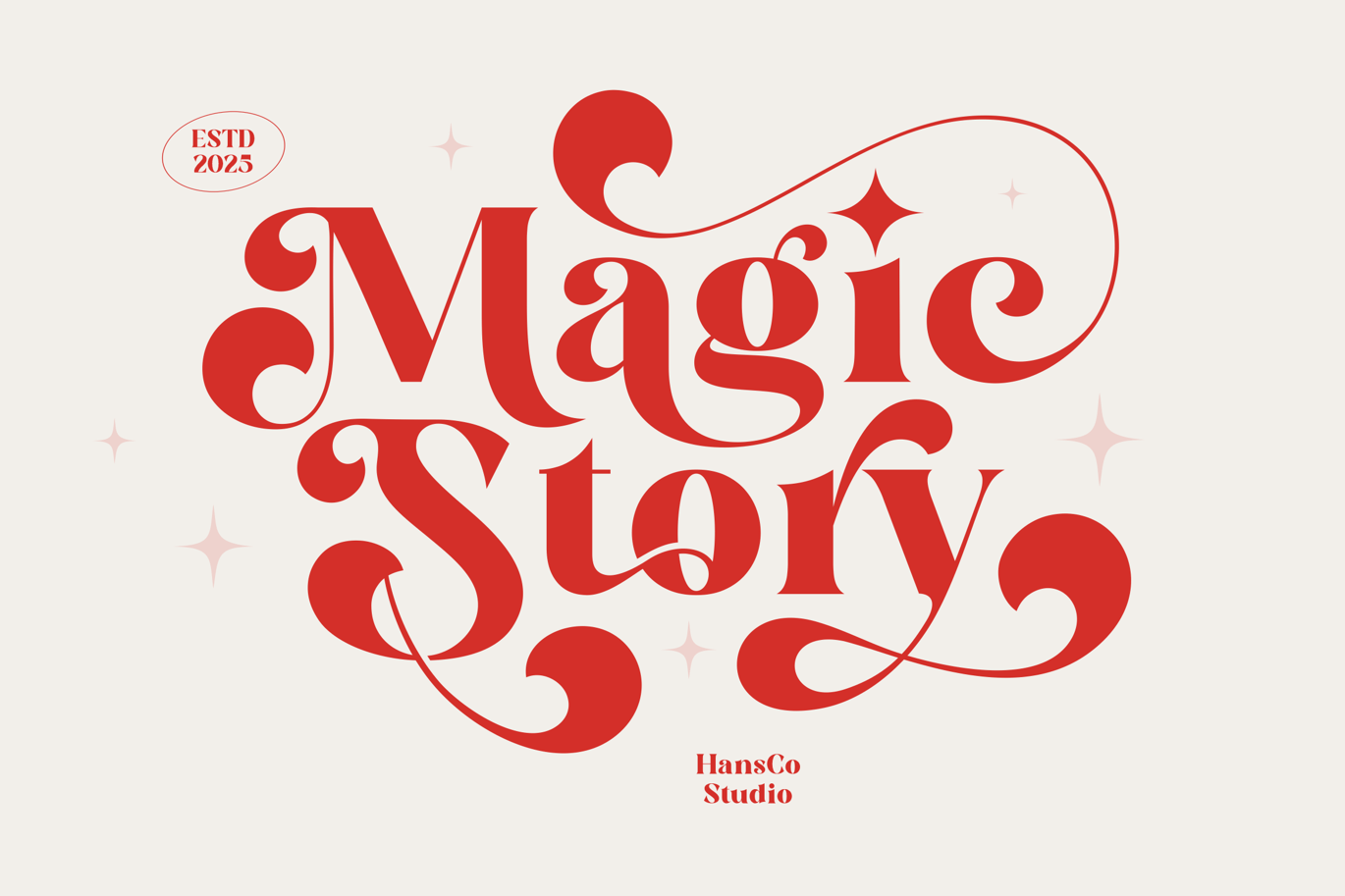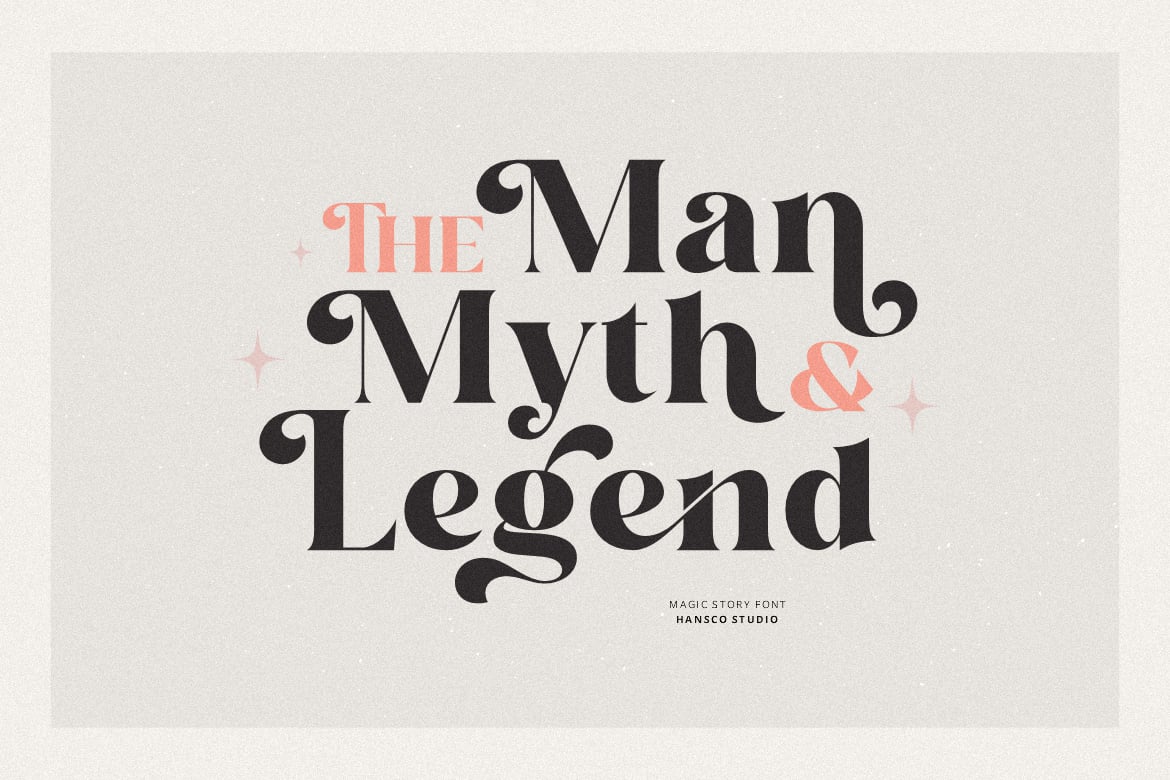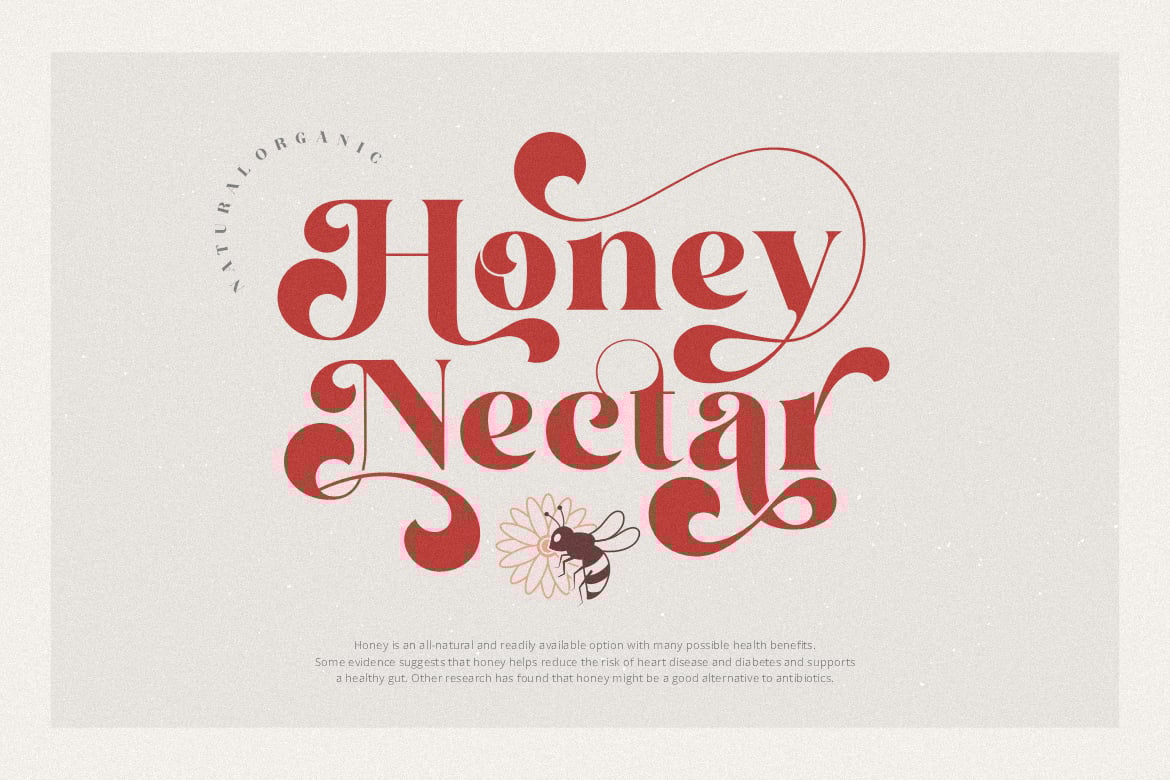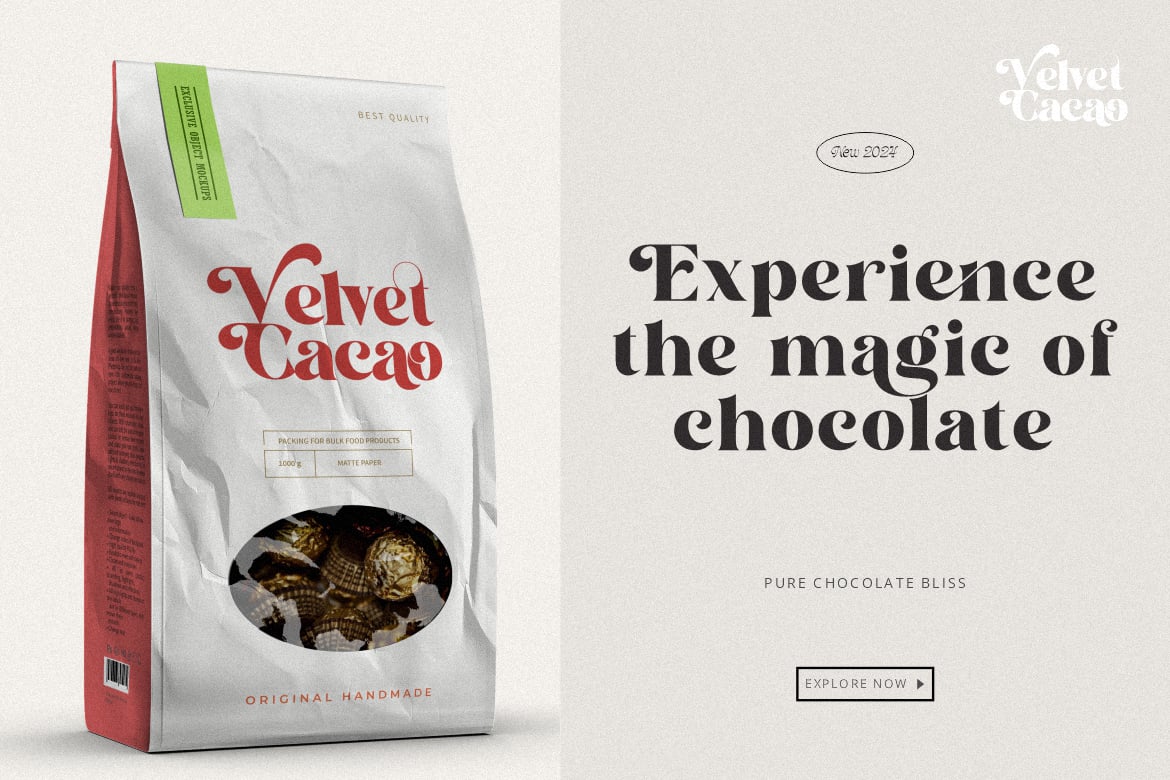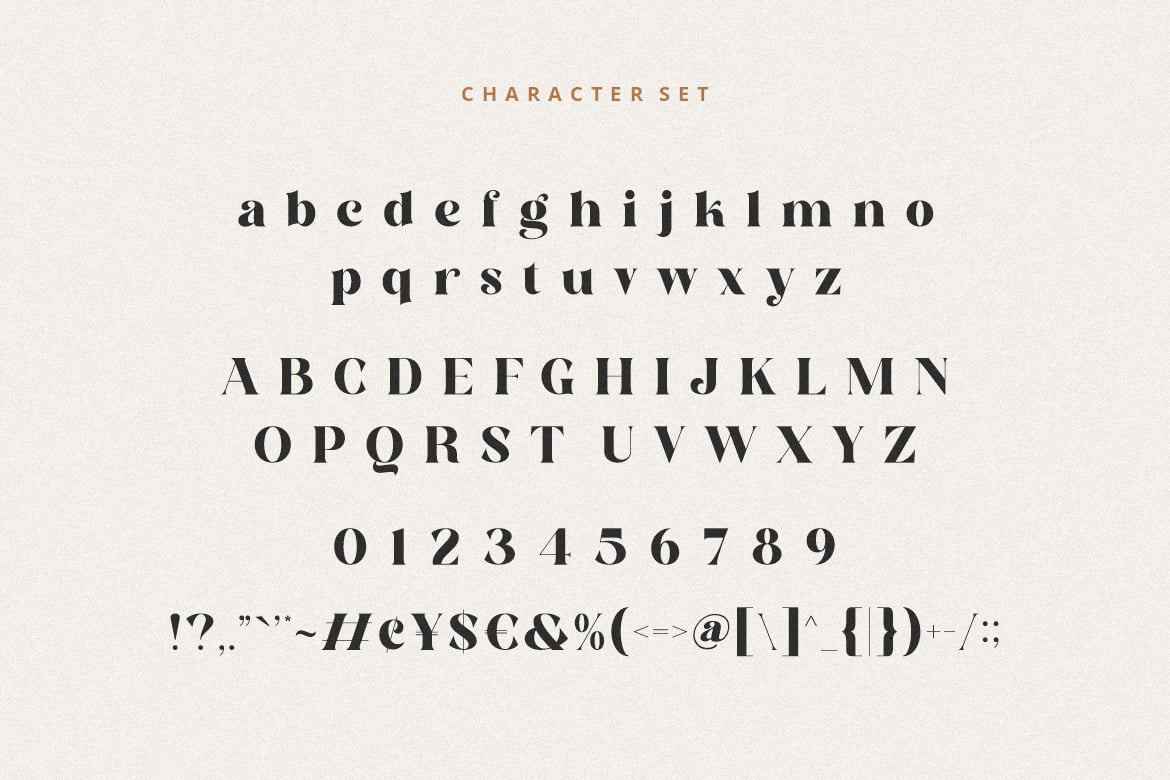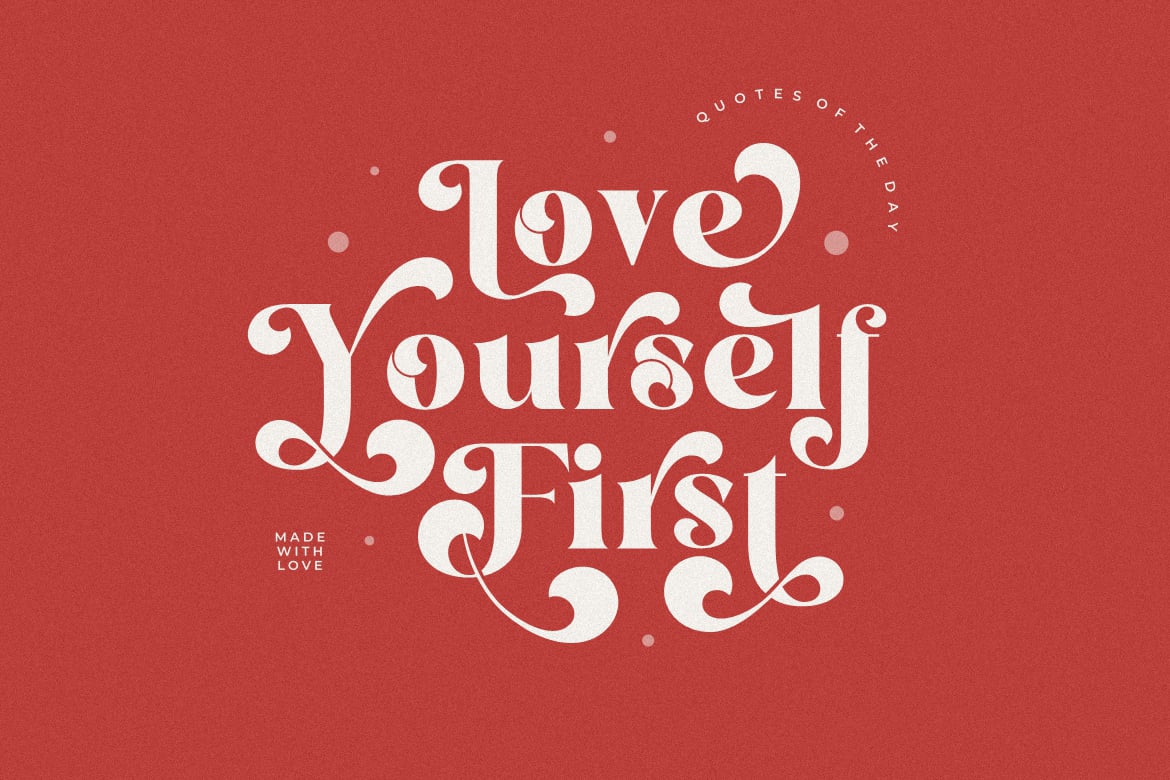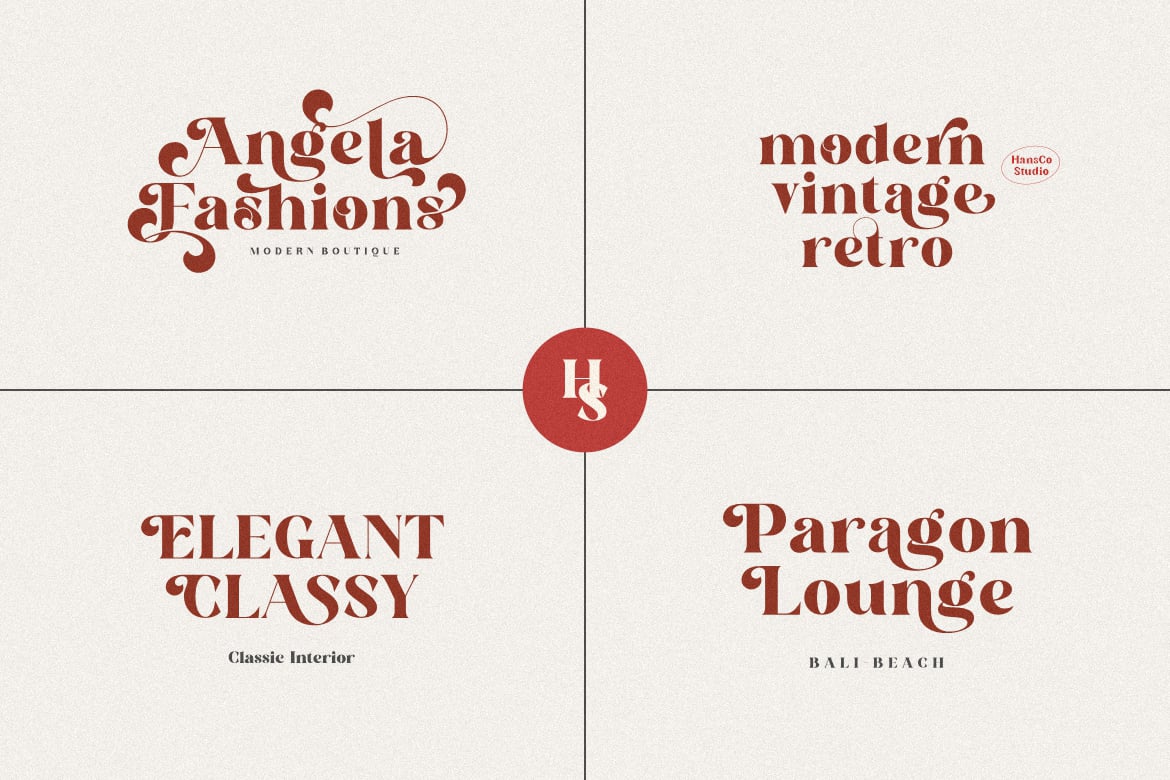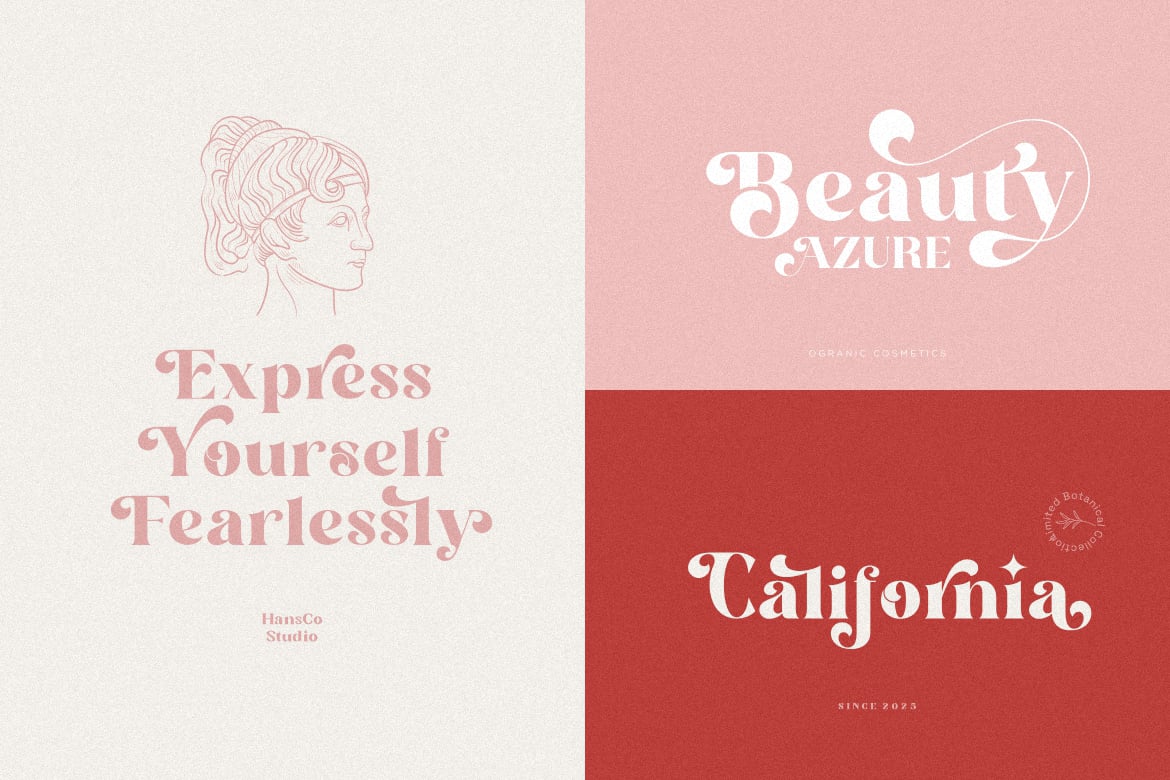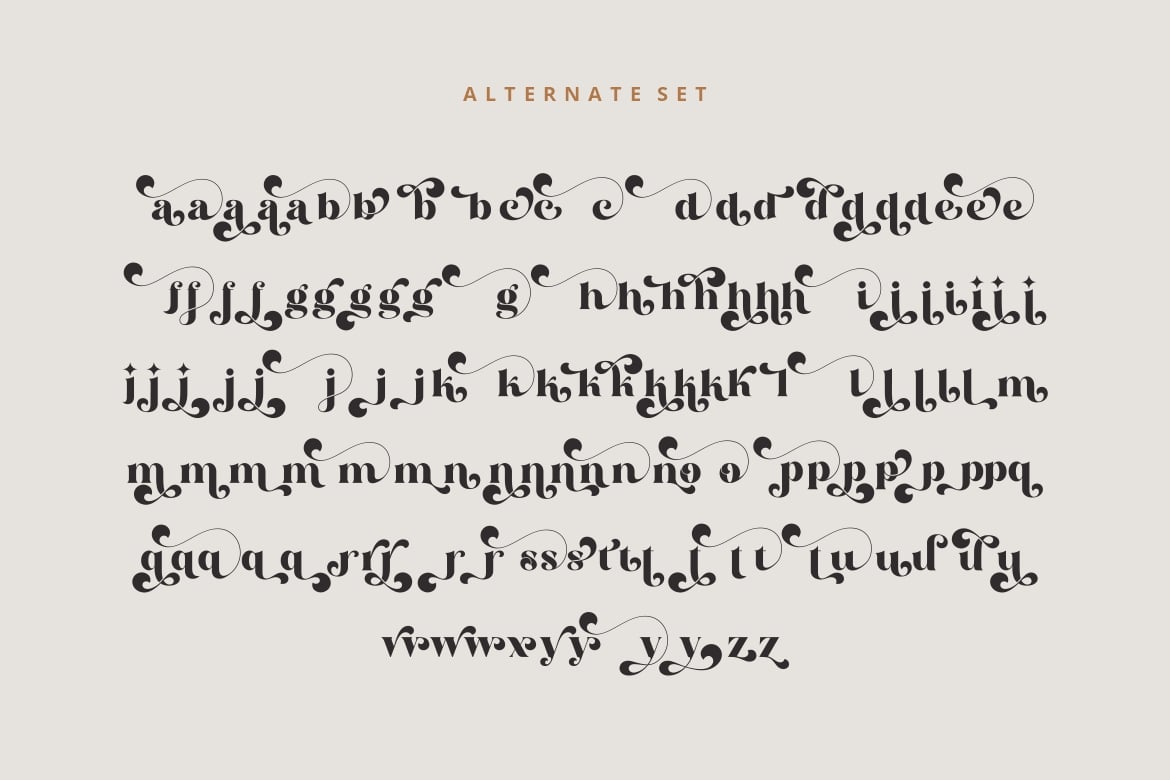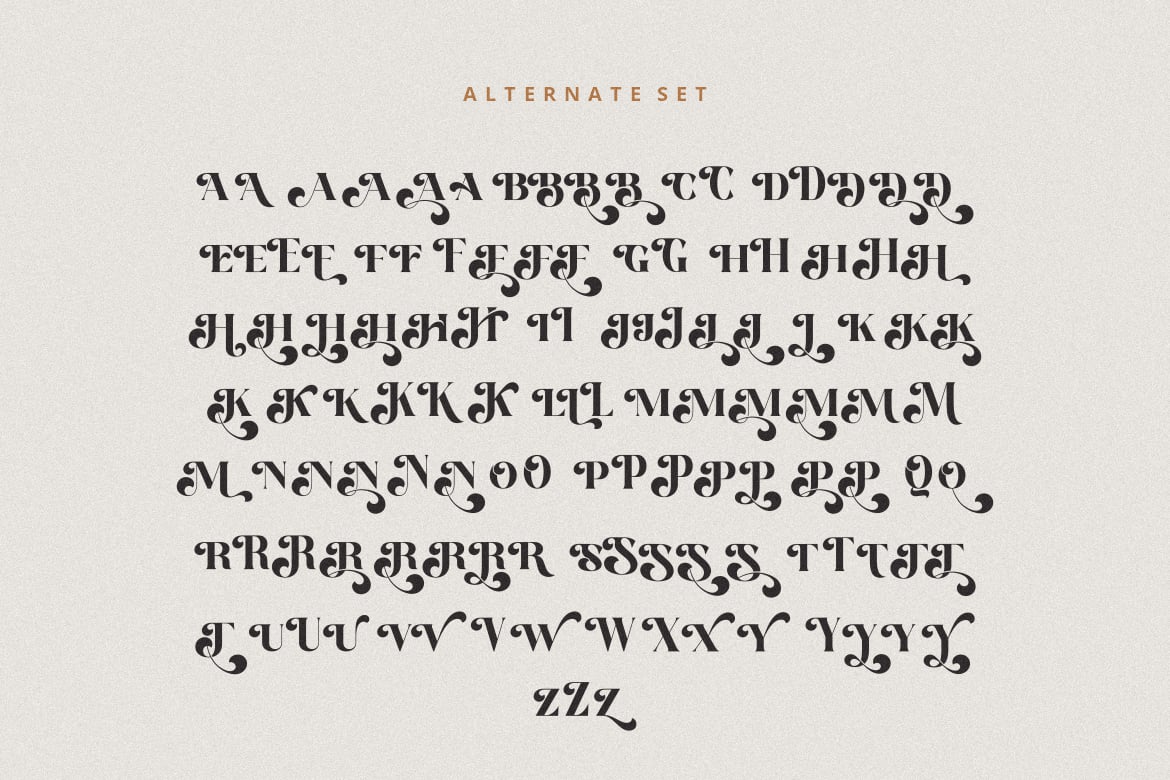
Magic Story Font
We are proud to present the retro casual with modern style Magic Story Font. This font is made by carrying the concept of a fun and chick serif with swash style in some characters, so it is friendly and suitable for application in any project like a logo or brand identity and packaging design projects. You can find alternative characters in this Magic Story font. This font is perfect also for creating print templates like posters, branding, quotes, blog titles, fashion, invitations, greeting cards, business cards, stationery or anything else. Comes with a full uppercase, lowercase, numbers, punctuation and with extensive language support, it’s going to be a very usable addition to your project. Be a perfect professional in a minute and start creating with this font today!
- Alternate Character